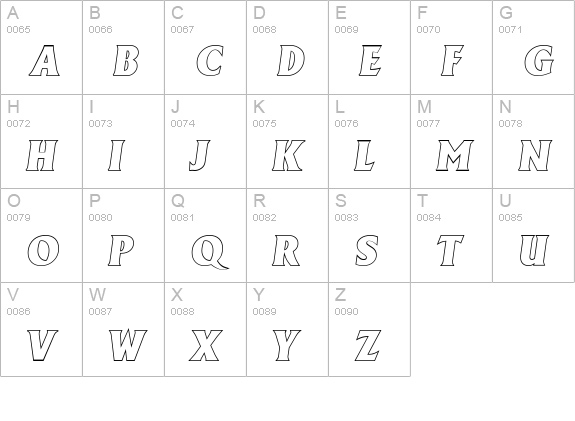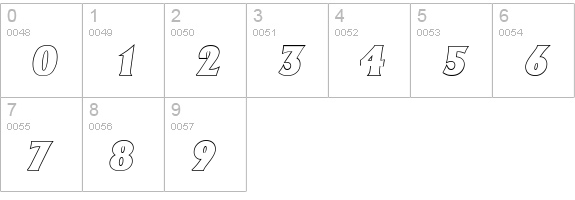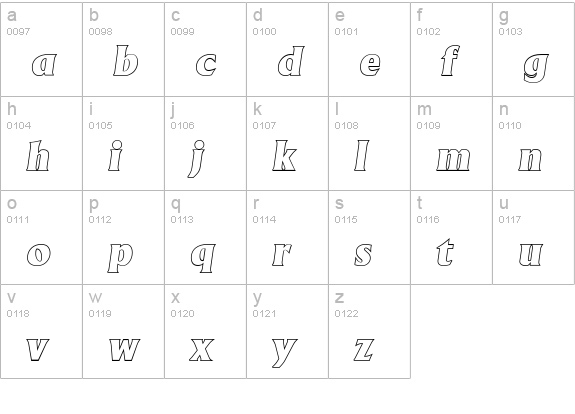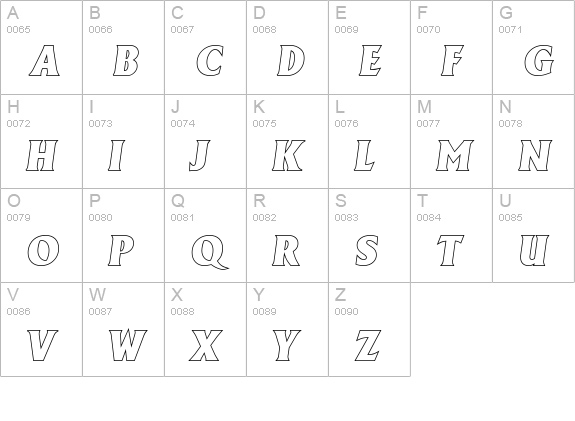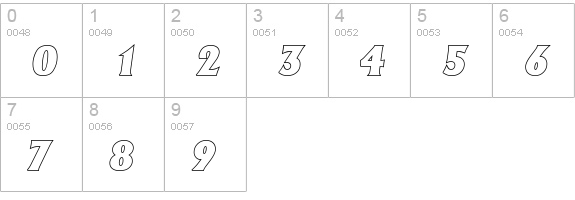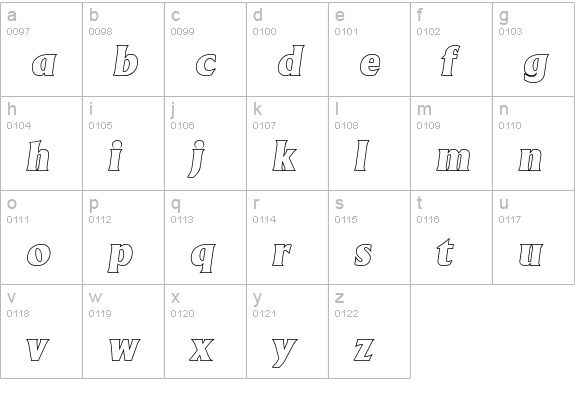
AdelonOutline-Heavy-Italic is a heavy, high-impact, italic variant in the AdelonOutline typeface family \xE2\x80\x94 well suited to high-impact headlines, posters, and display advertising.
AdelonOutline-Heavy-Italic font is a bold and stylish typeface that exudes elegance and sophistication. Its unique design features sharp edges and slanted italics, making it perfect for adding a touch of modern flair to your projects. This font is ideal for creating eye-catching headlines, posters, and branding materials that demand attention. And the best part? AdelonOutline-Heavy-Italic font is available for free download at FontsMarket.com! Whether you are a designer looking to enhance your work or an enthusiast searching for a new favorite font, this typeface will not disappoint. Don't miss out on the opportunity to elevate your designs with this stunning and versatile font. Download it now and unleash your creativity!